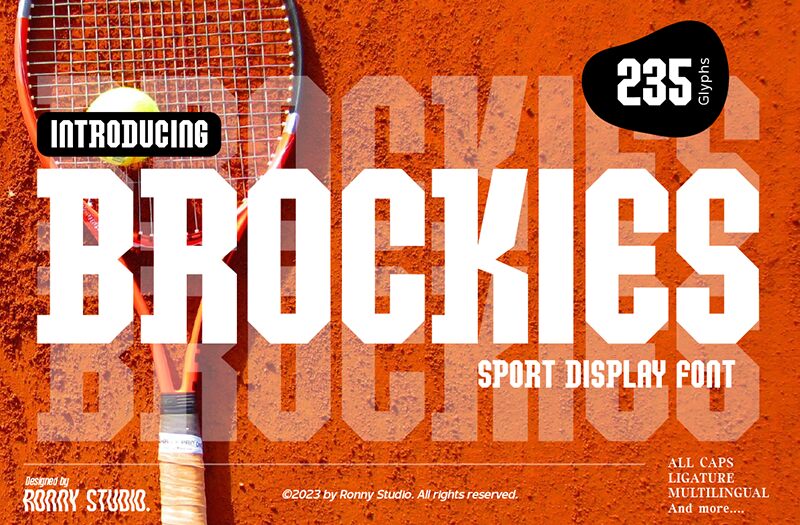
Brockies font, designed by Ronny Studio, embraces a bold old-school aesthetic that captures attention with its striking presence. The condensed form elevates its vintage charm while enhancing readability, making it perfect for statements that demand a strong visual impact. Each letter showcases a captivating design that merges nostalgia with contemporary flair.
This display font is ideal for eye-catching posters, dynamic branding, and creative headings. Its unique character adds personality to any project while maintaining an approachable yet assertive style. Brockies effortlessly balances modern design needs with a classic twist, making it an excellent choice for designers aiming to evoke both familiarity and excitement in their work.